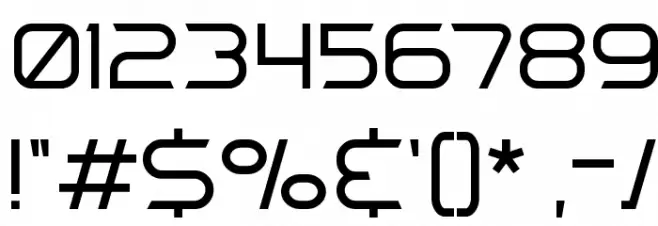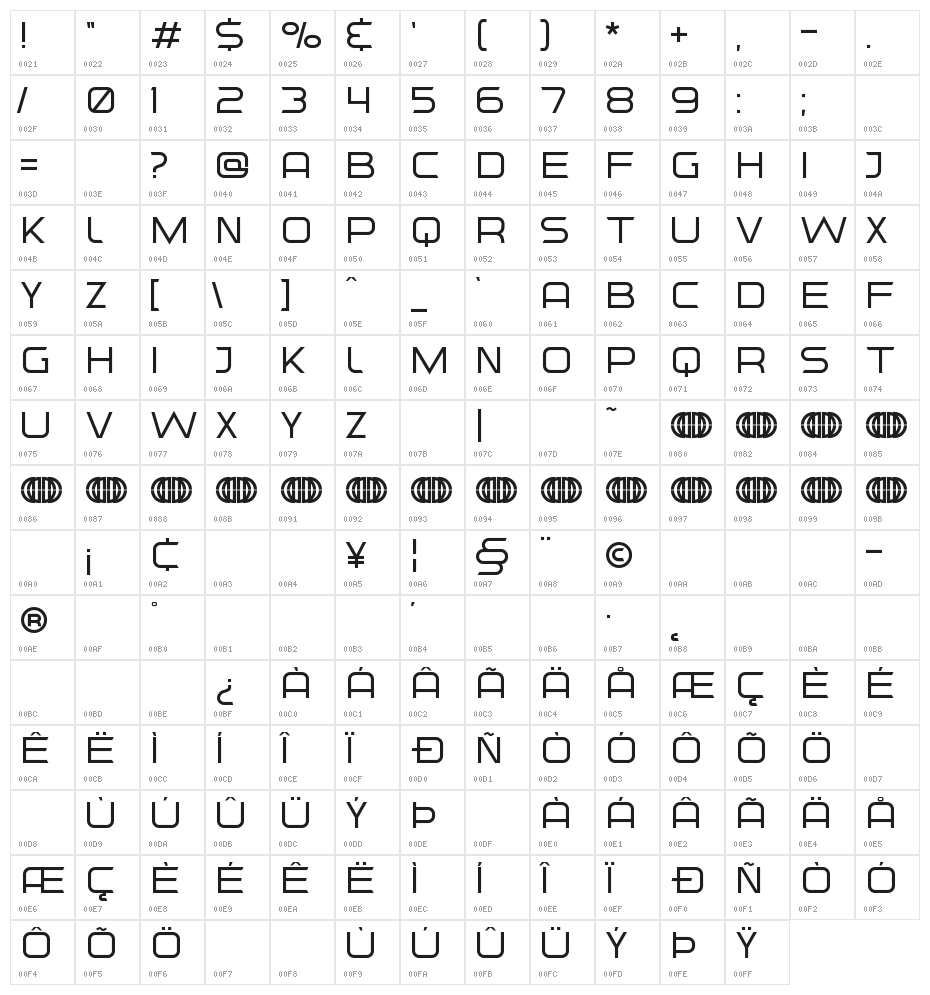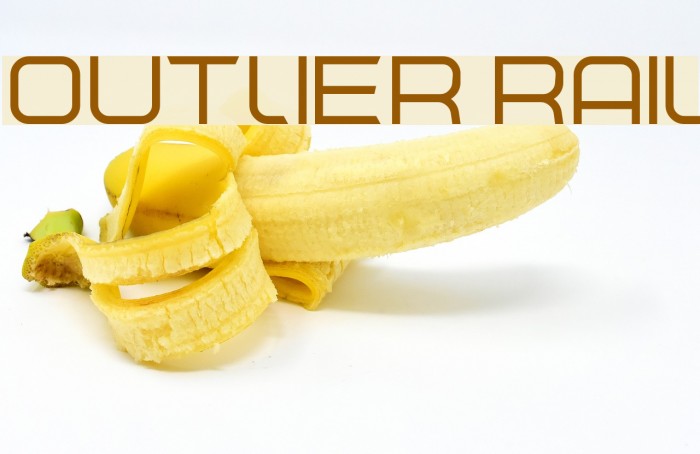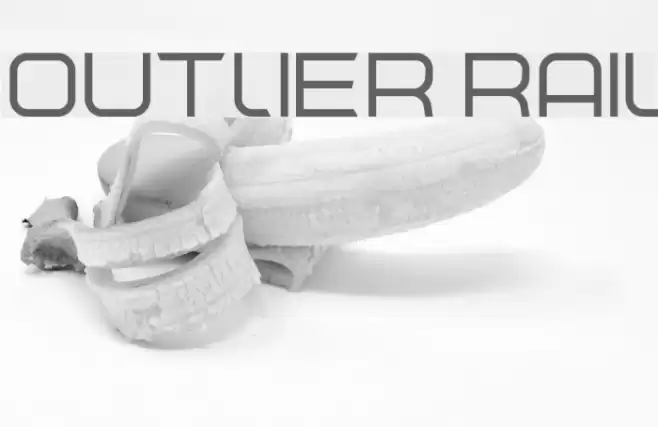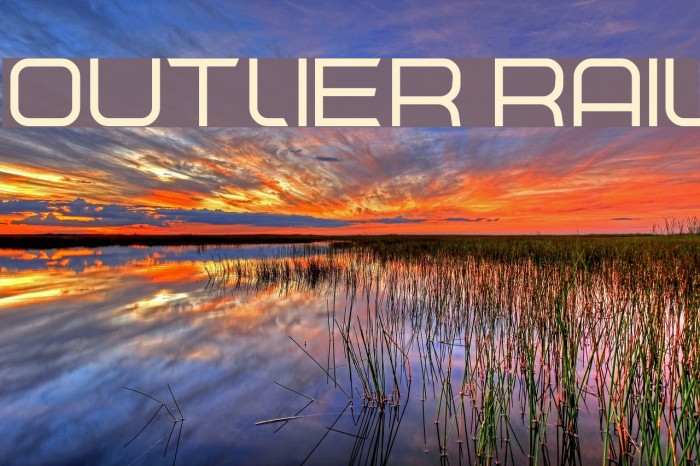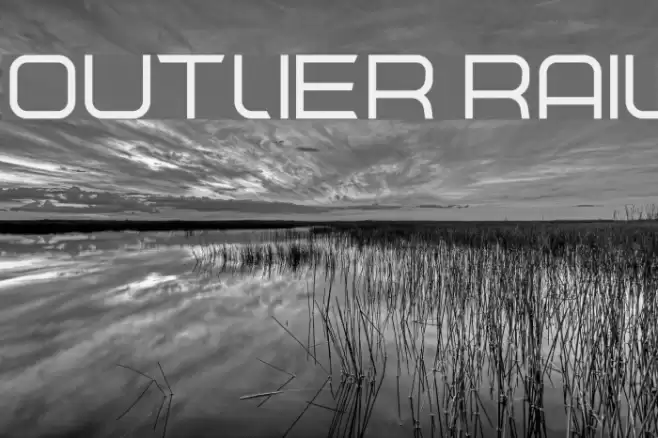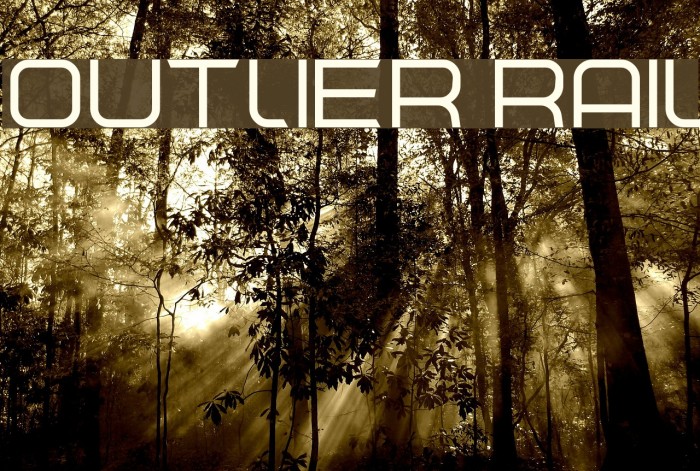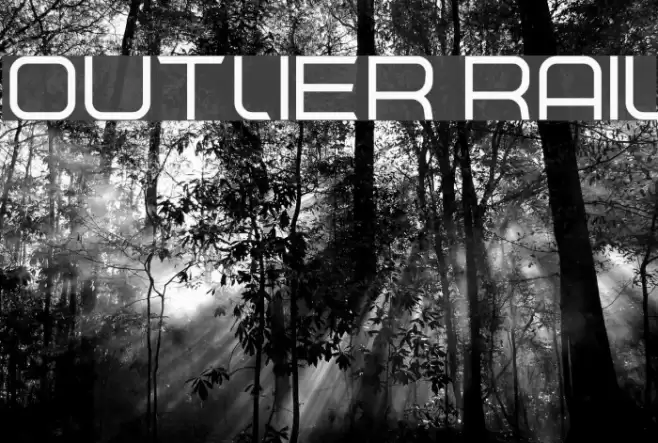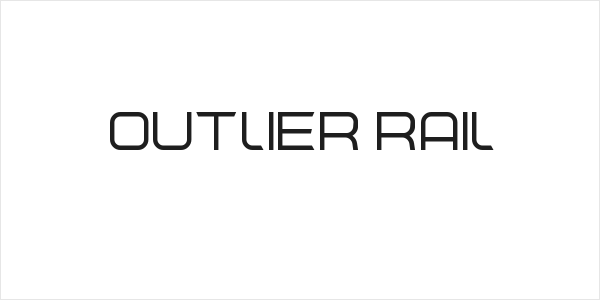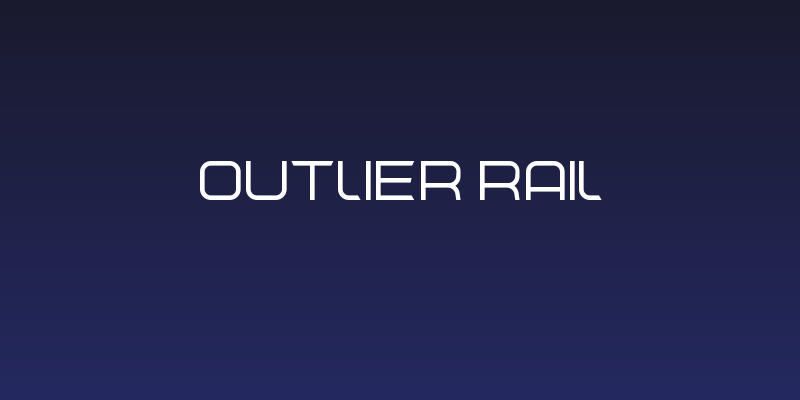
Outlier Rail Font
Outlier Rail Description
This font features a modern and geometric design with a distinct, futuristic appeal. The characters are constructed with clean, straight lines and sharp angles, giving them a technical and precise appearance. The uppercase letters are uniform in height, while the lowercase letters maintain a consistent style, enhancing readability. The numerals are bold and clear, matching the overall aesthetic of the font. Special characters are designed with the same geometric precision, making them stand out while maintaining cohesion with the rest of the typeface. This font's unique style is suitable for projects that require a contemporary and innovative look.